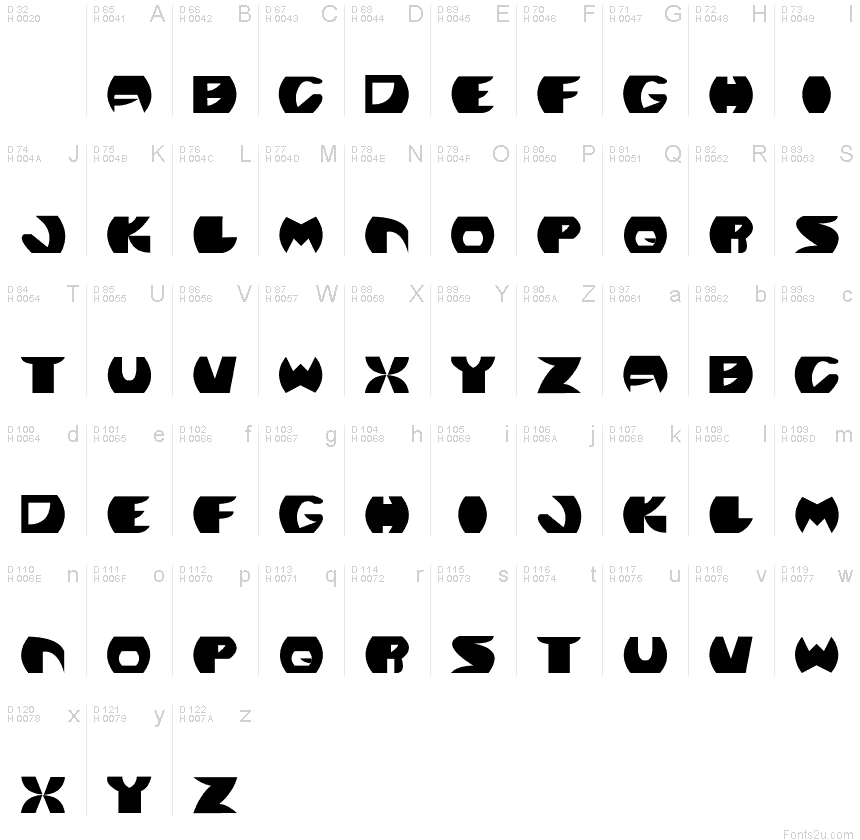
Cyber Phonic
Cyber Phonic font by Bluevinyl is a free futuristic display typeface that turns every word into a chunky piece of sci‑fi hardware. The Cyber Phonic family uses thick, sculpted curves and squared-off cavities, so letters feel like glossy panels bolted onto a console. Its tight spacing and consistent weight create a bold, monolithic rhythm that reads like a retro computer interface brought into HD.
Using Cyber Phonic, you can brand techno events, game titles, sci‑fi posters, esports teams, gadget packaging, or YouTube channel graphics with instant late‑90s cyber energy. This free font shines at large sizes where its blocky geometry and sharp cutouts stay crisp and punchy; pair it with a simple geometric sans-serif for body copy to keep layouts readable while the headline does the heavy lifting.